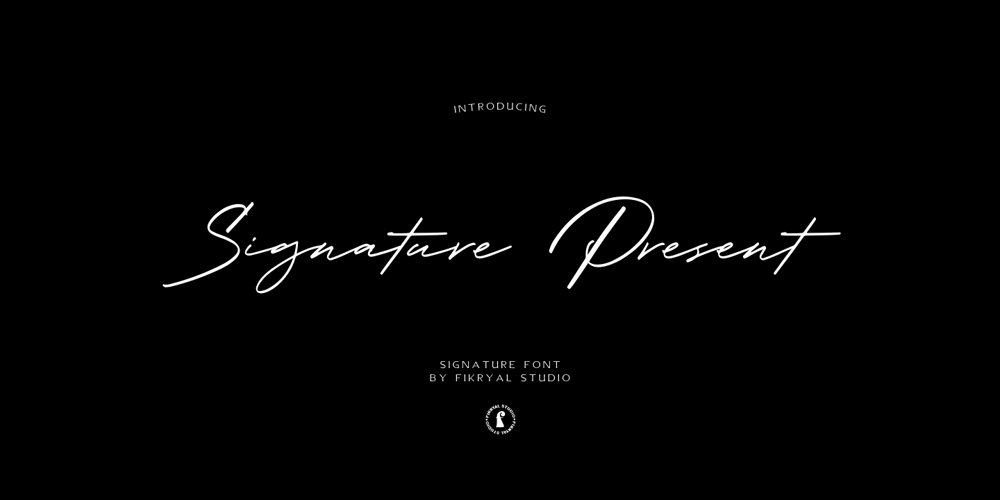
Signature Present Font Family was designed by Muhammad Fikry and published by Fikryal. Signature Present contains 1 styles and family package options. Signature Present – Signature Font is a meticulously crafted typeface that exudes elegance and sophistication. This font is designed to add a touch of personal flair and exclusivity to your projects, making it an ideal choice for various creative endeavors. With its exquisite strokes and graceful curves, Signature Present embodies the art of calligraphy, making it perfect for adding a luxurious and handwritten feel to your designs.